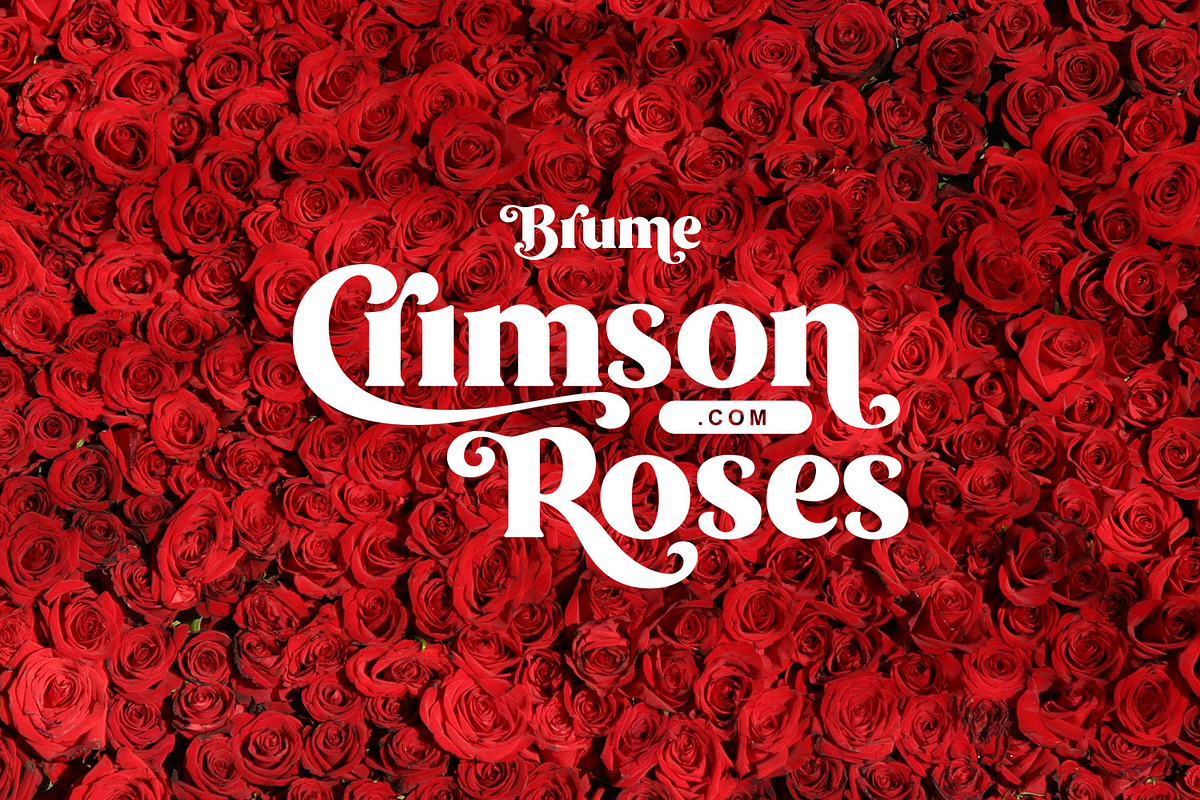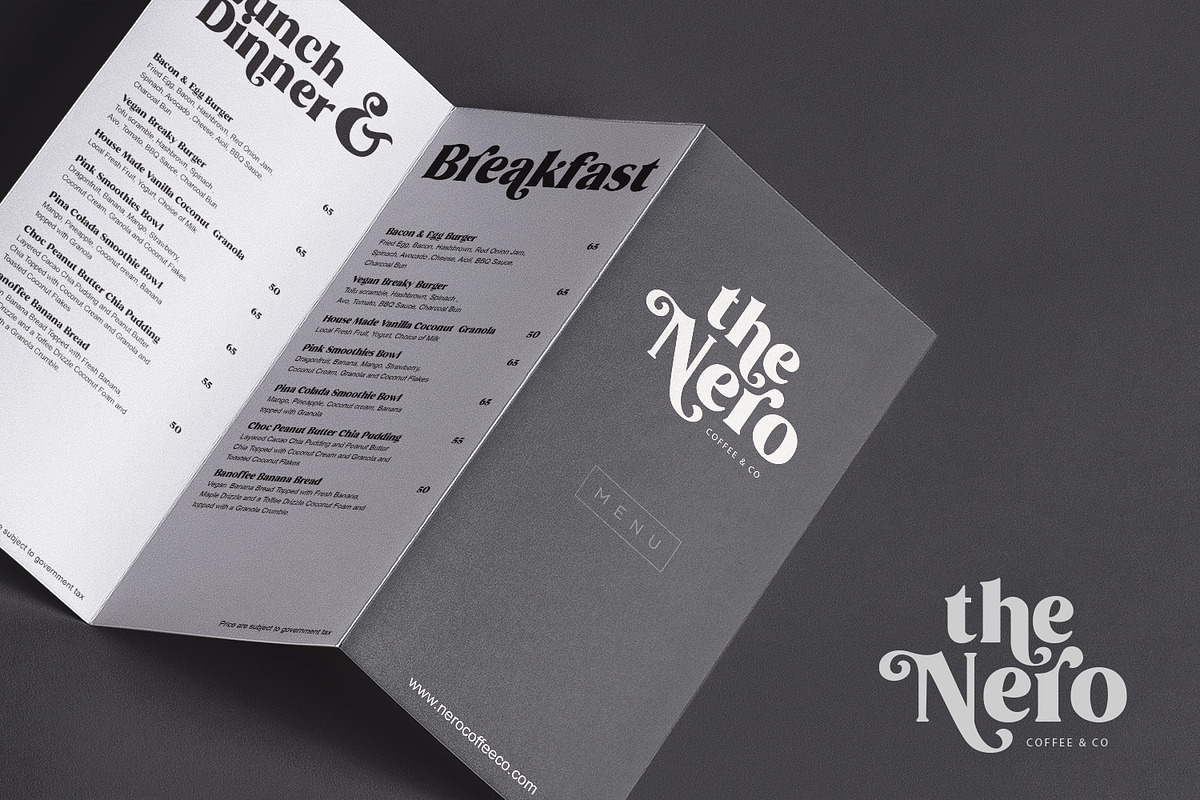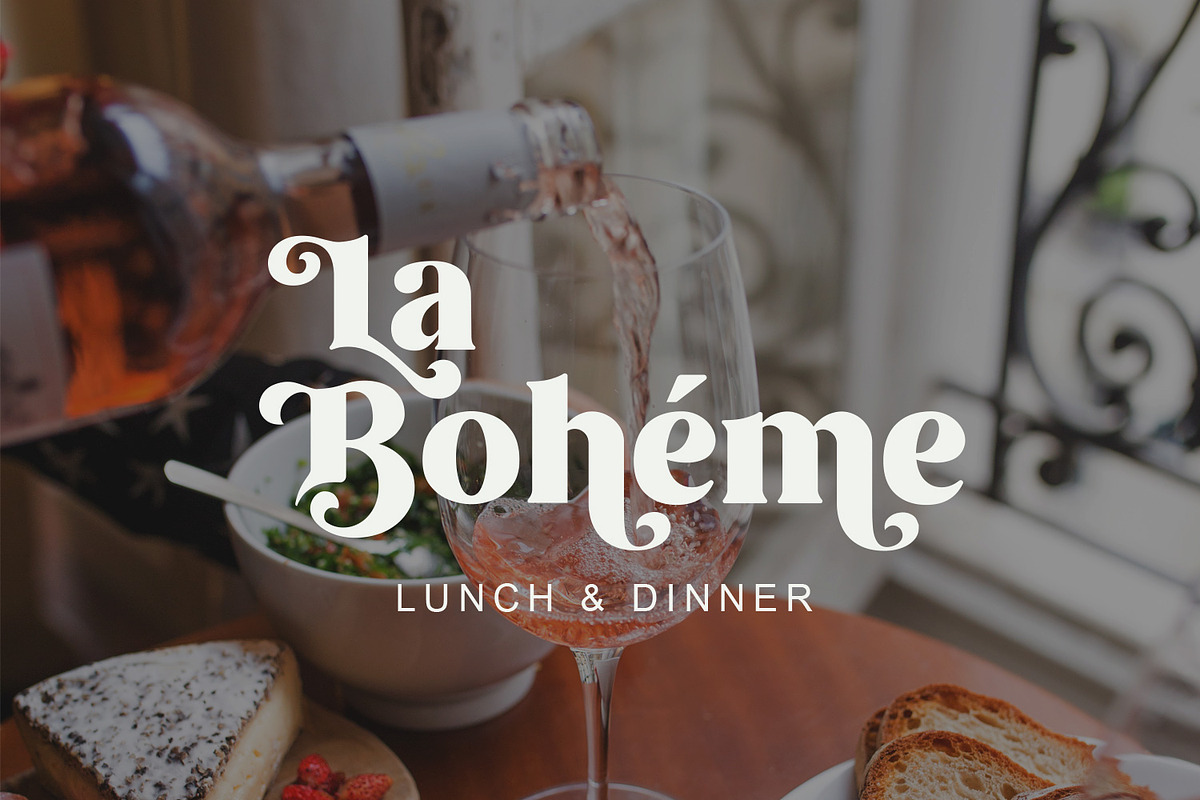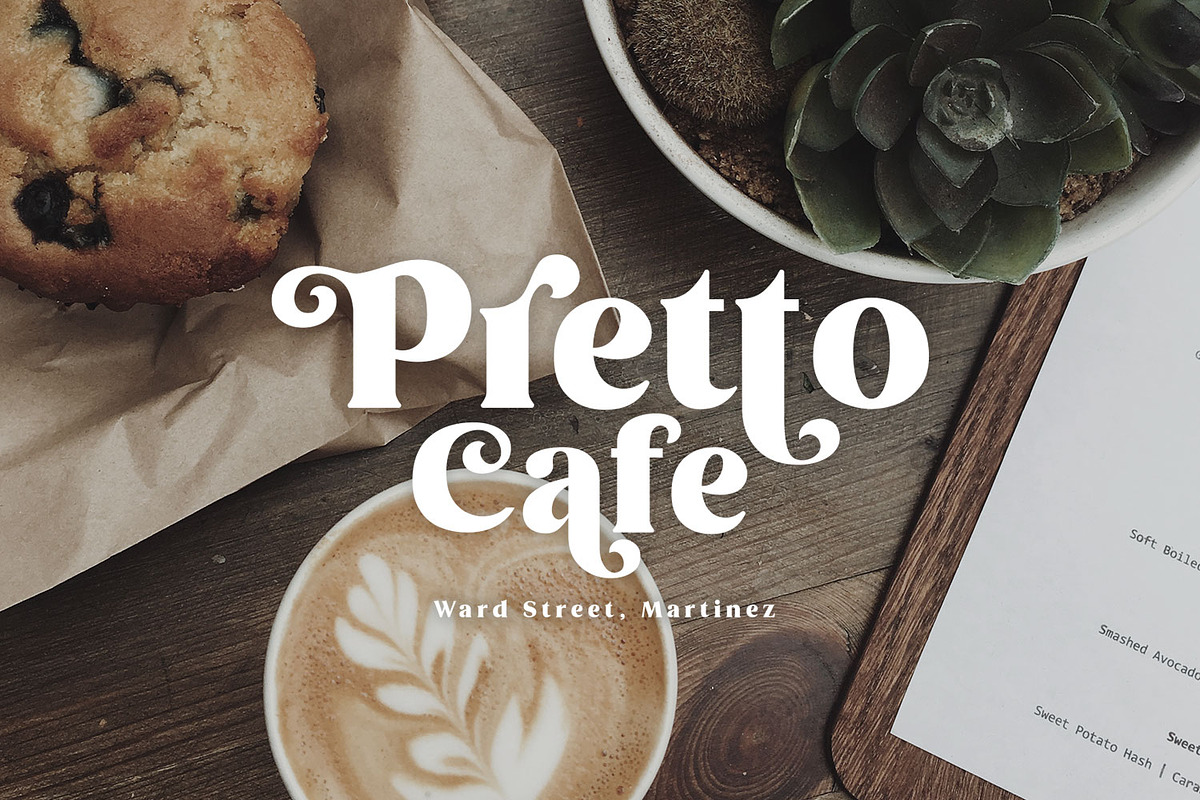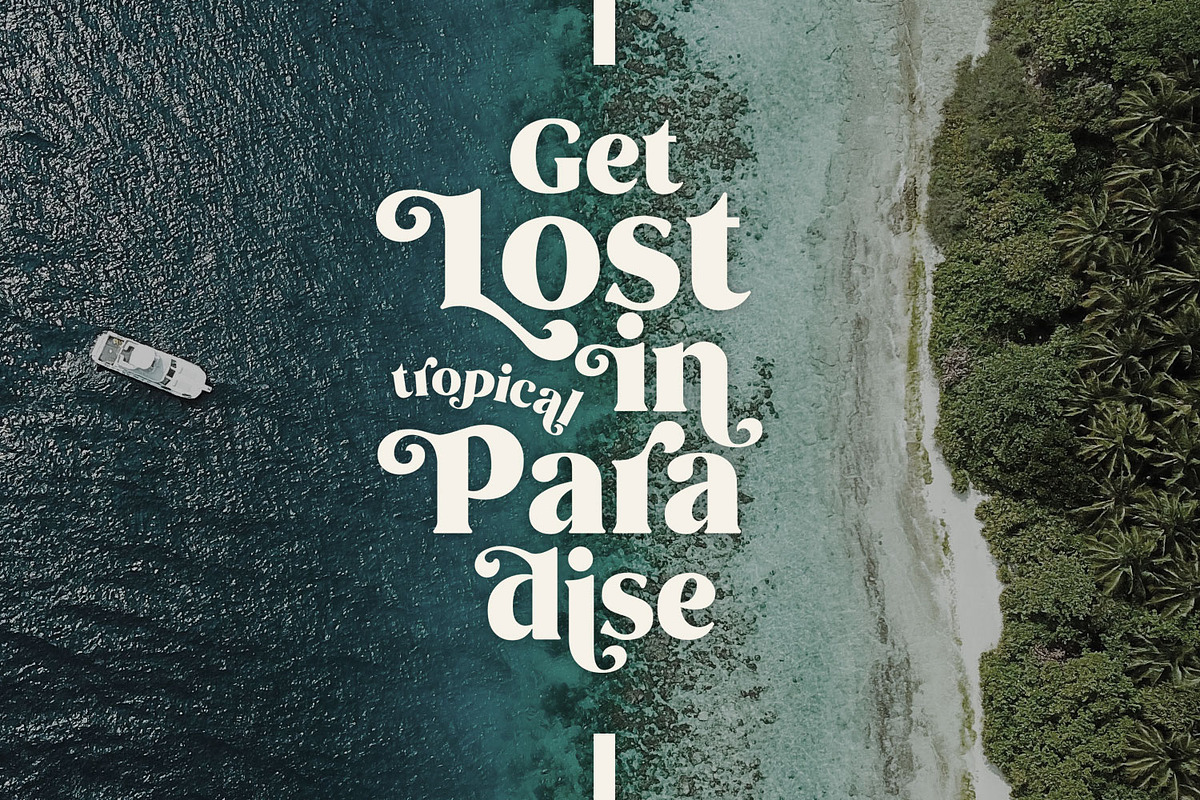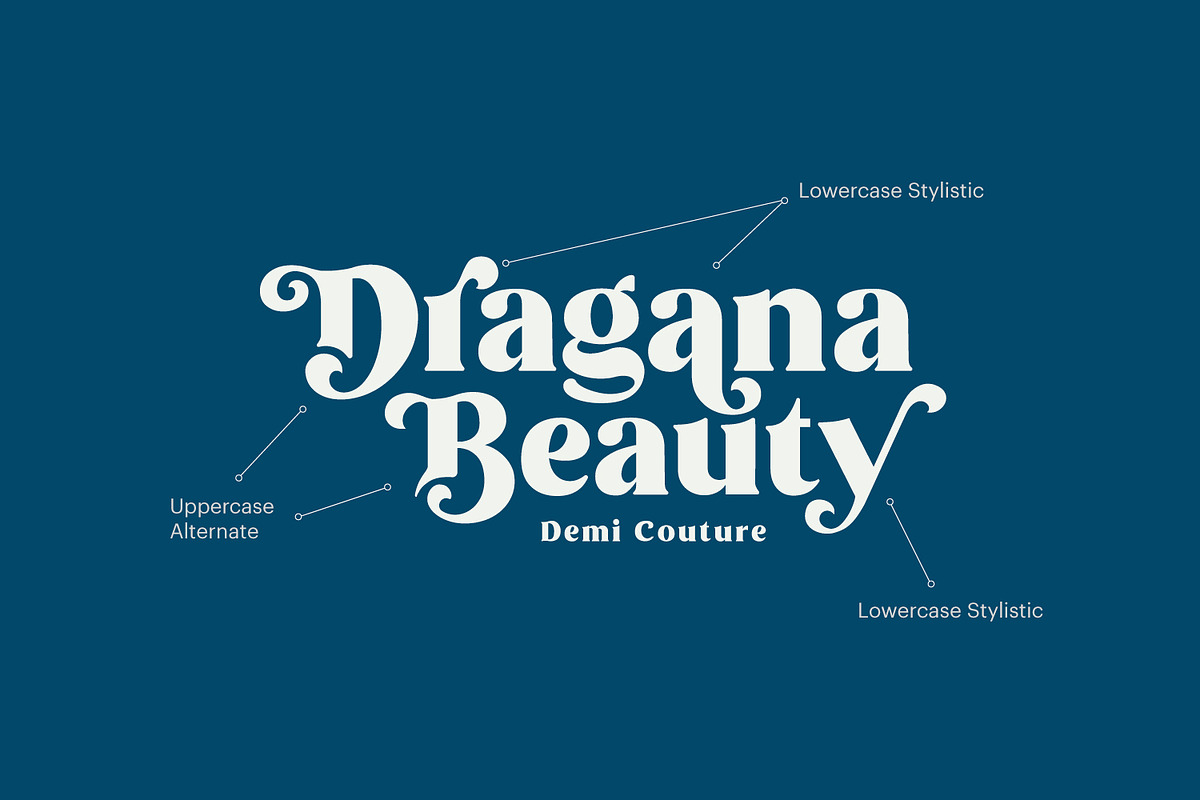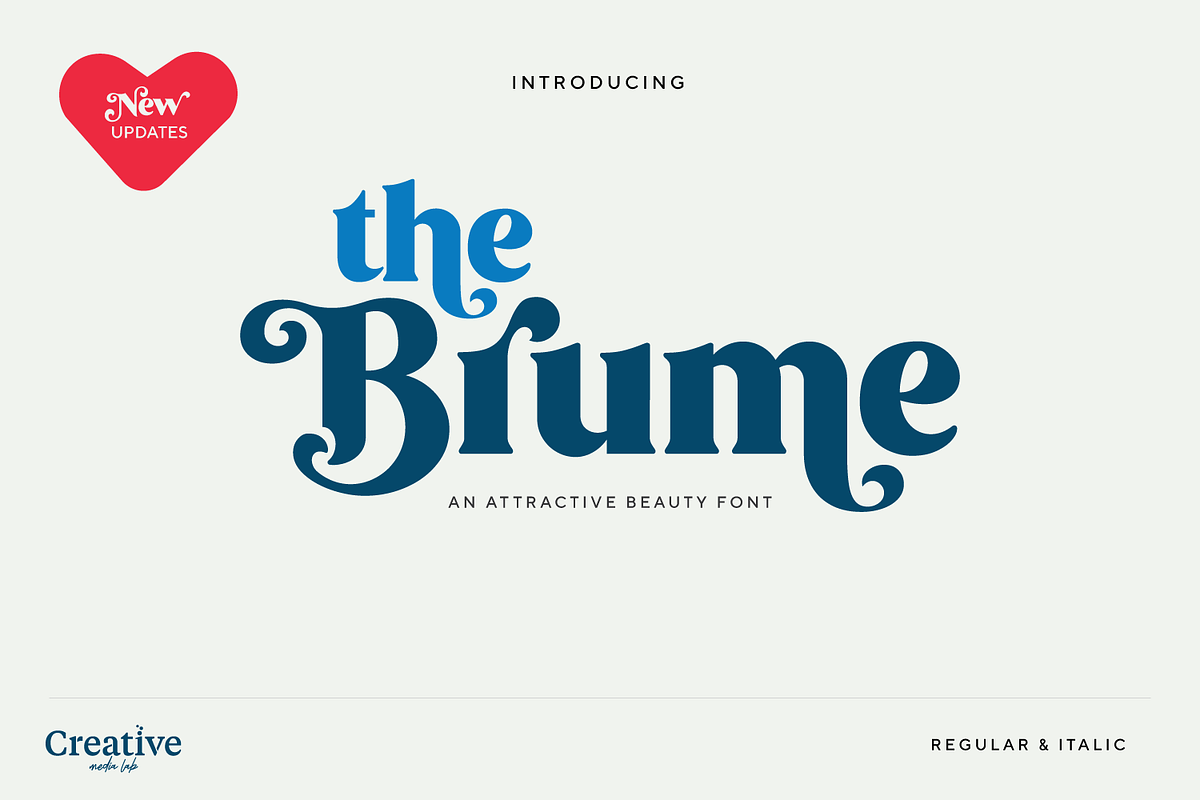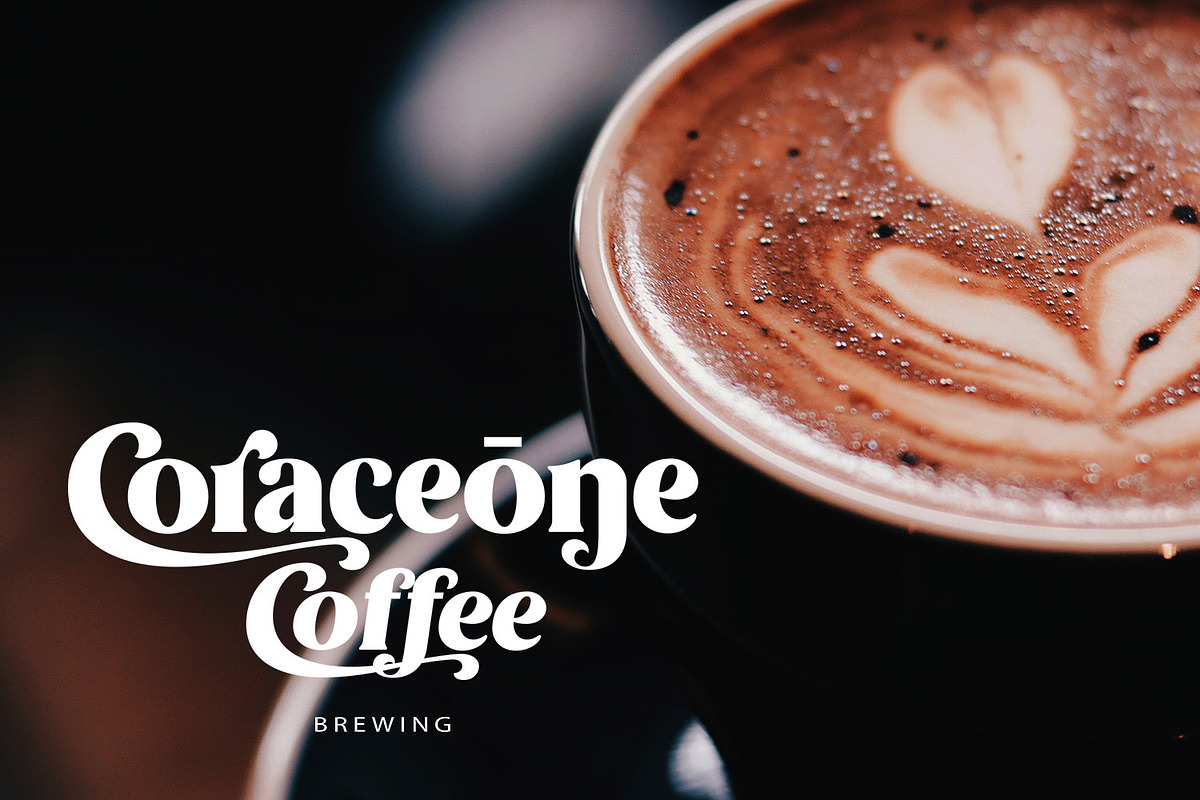
Brume Font
Brume font is a bold, attractive and beautiful font.
"Easy to read, modern and elegant look but stylist", this will be the first words that your client says to your design using this font. Comes with uppercase and lowercase. It has many alternates character with nice curve that you can arrange to create a nice logo lettering, or use it as a display face on a poster and add a few alterations to it to make a beautiful eye catching words.
Brume font is best for logo lettering, headlines, product packaging, tshirt design, wedding theme, poster, book cover, wedding invitation, Christmas and more